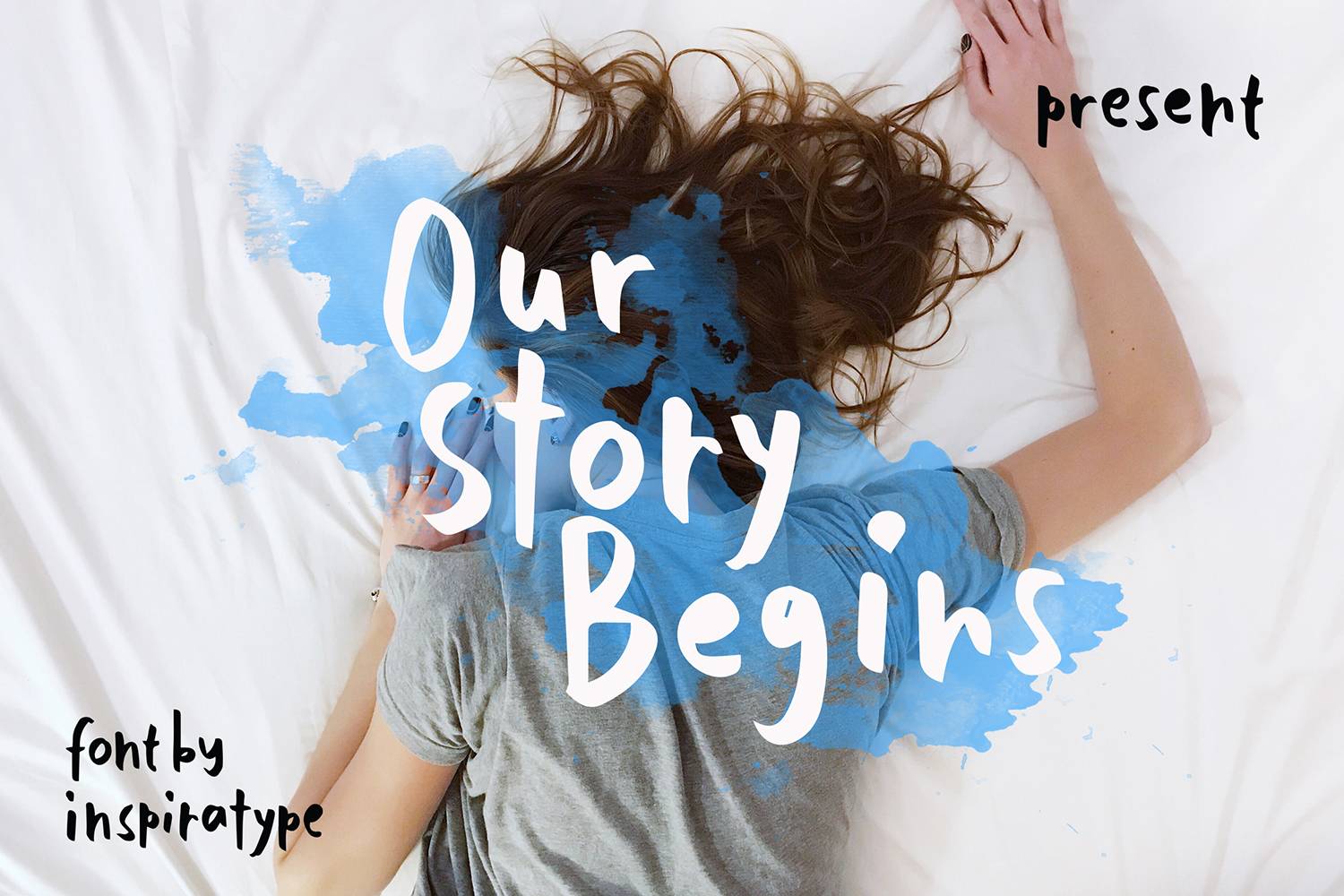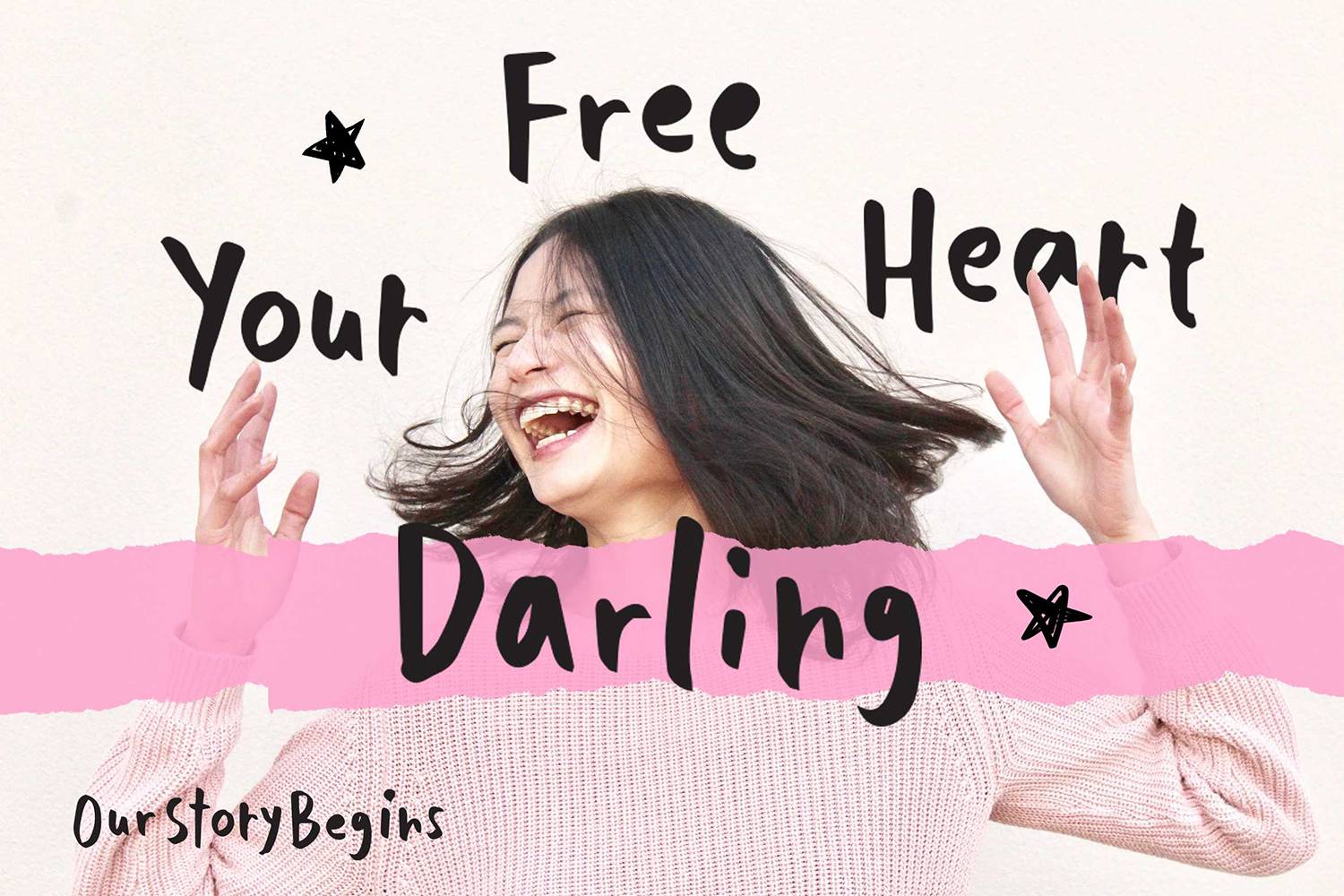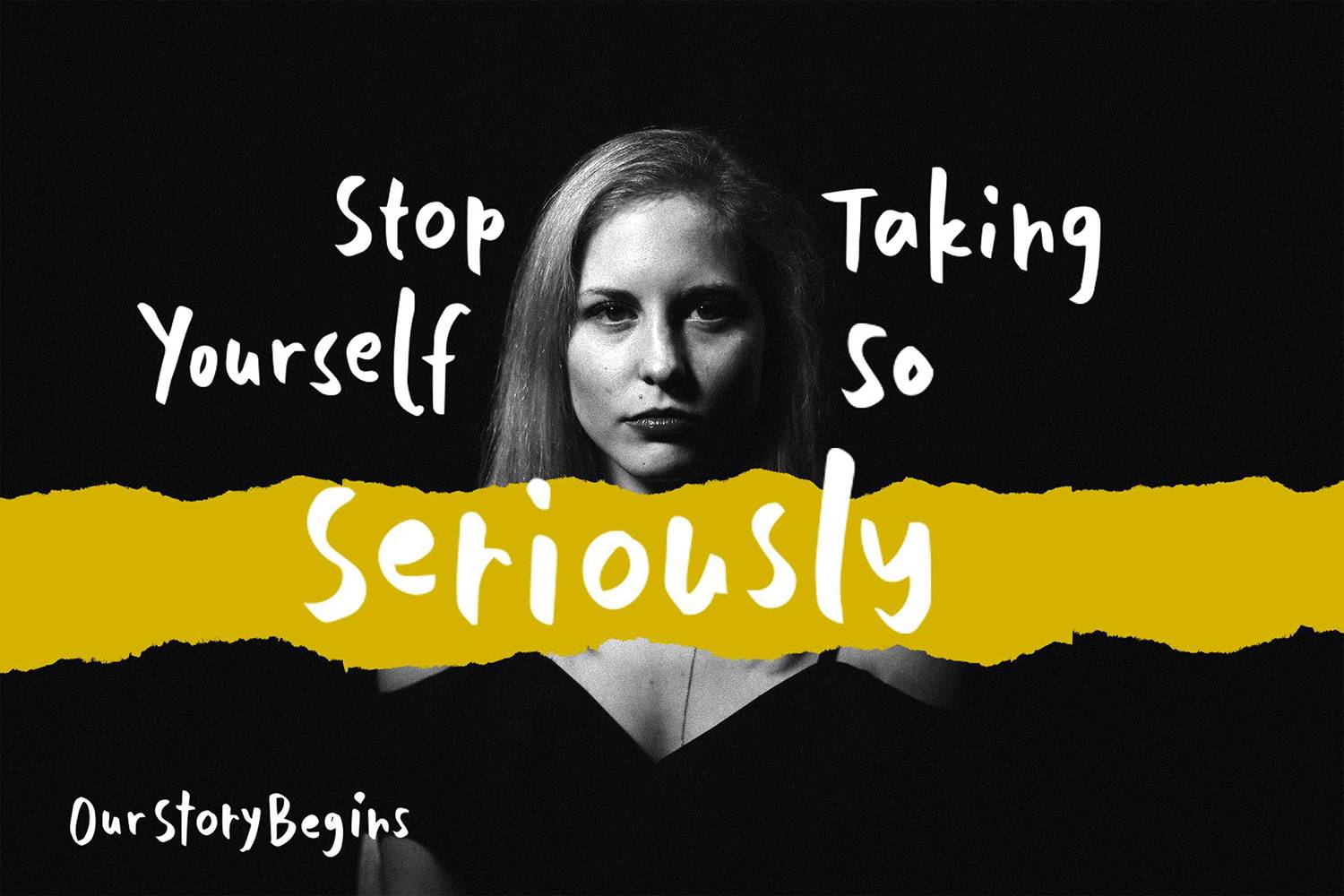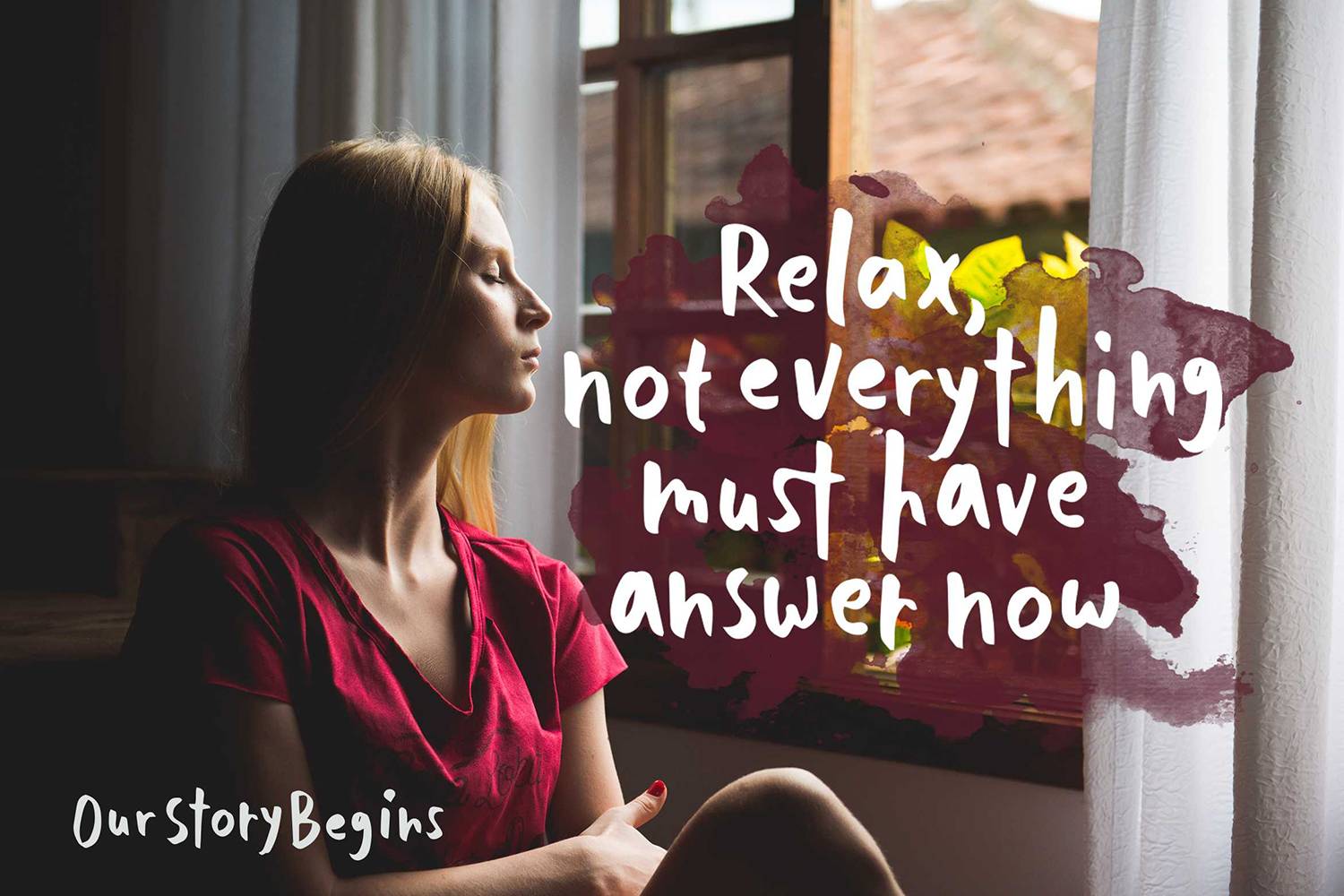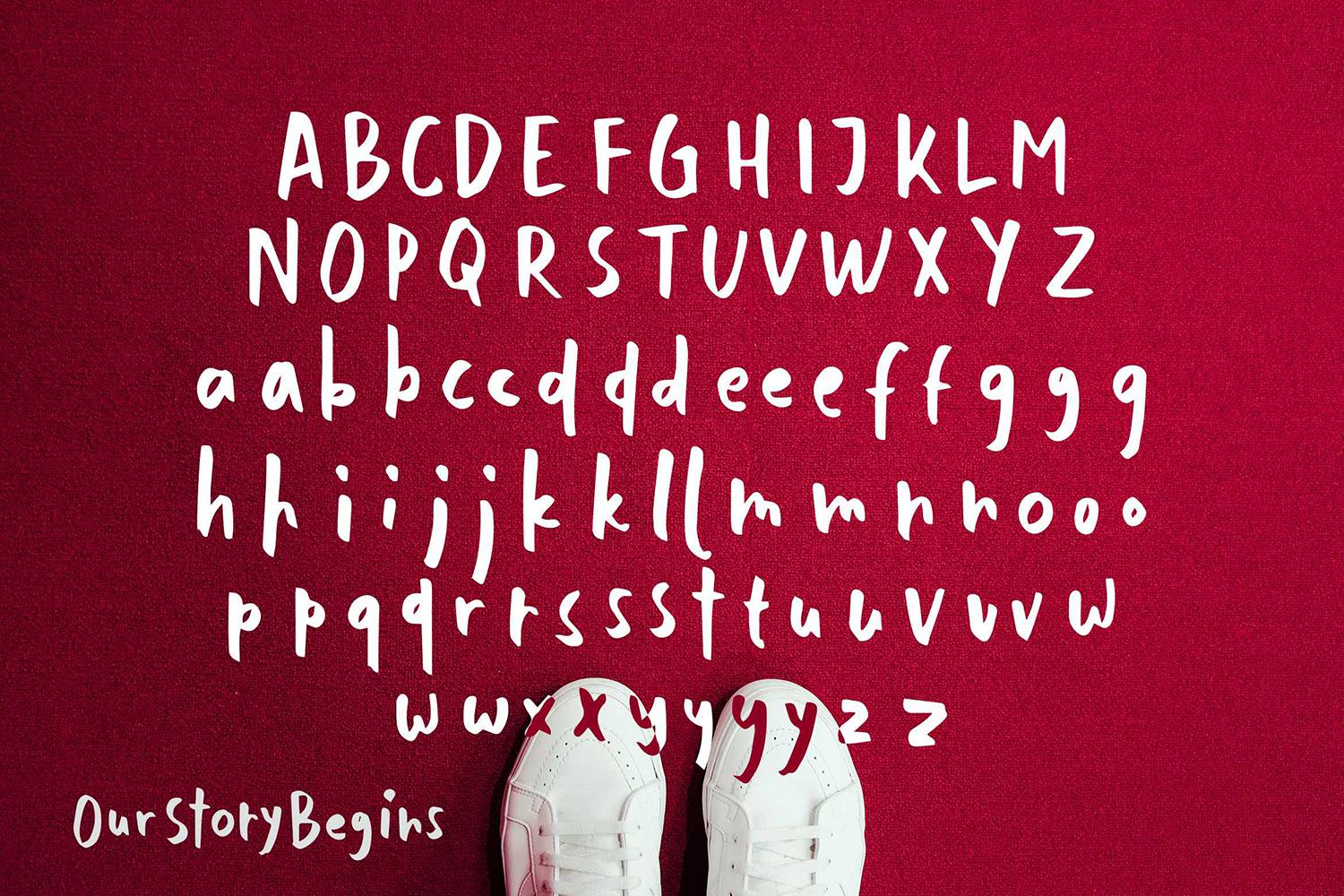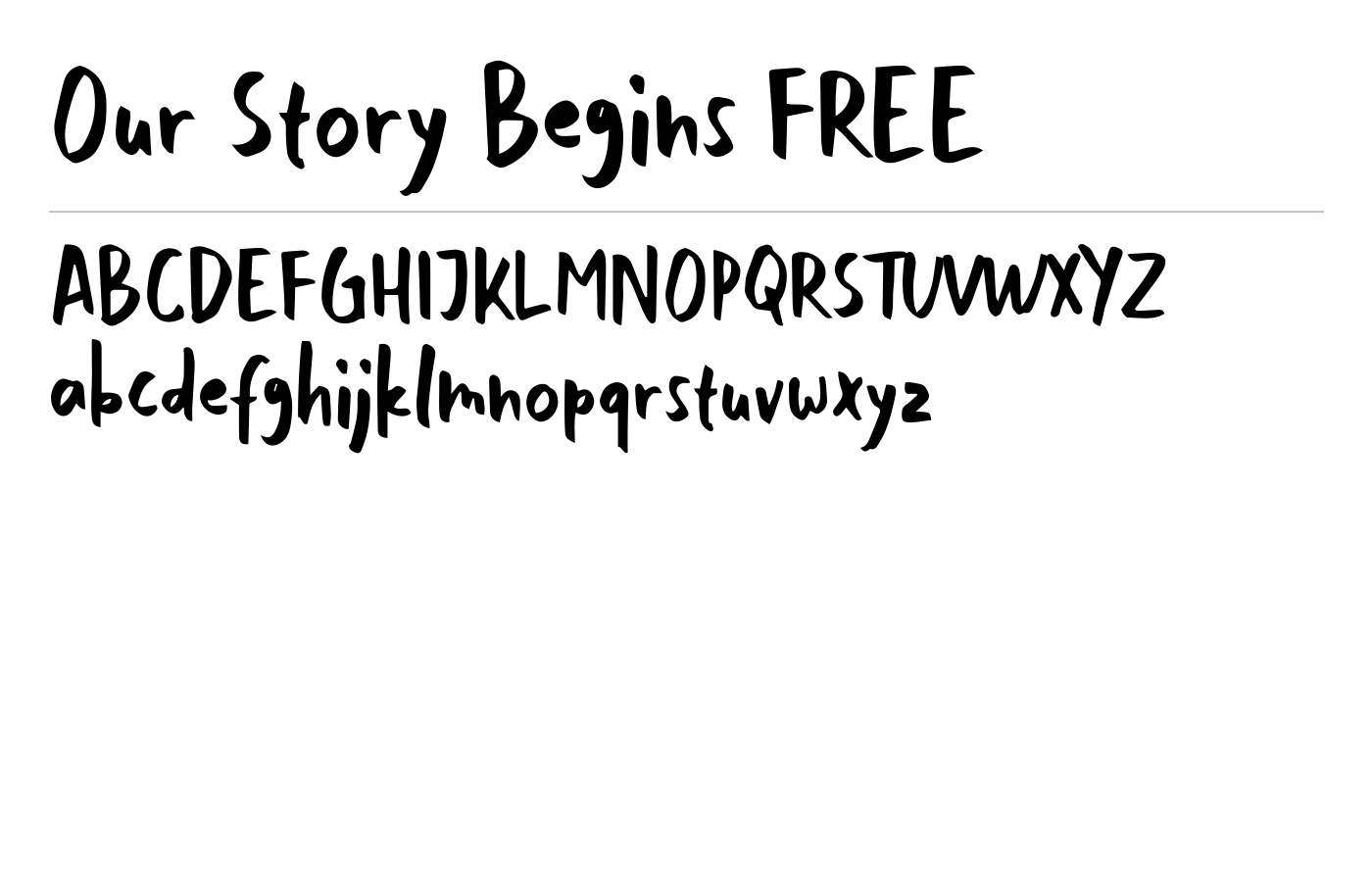
Our Story Begins is a playful, handwritten sans serif font with a casual and friendly feel. Its irregular strokes and lively letterforms give it a charming, approachable personality that works well for creative projects, informal branding, and personal storytelling. This font is ideal for logos, invitations, and headlines where a warm, human touch is desired.
Our Story Begins Font
About Our Story Begins Font
| Font family | Our Story Begins Font |
| Designer | Inspiratype |